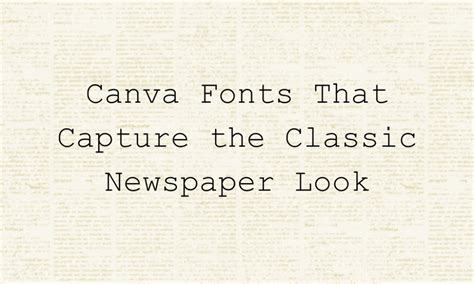
Download Newspaper Fonts: Get That Classic Look
Download Newspaper Fonts: Get That Classic Look!Imagine flipping through an old newspaper, the rustle of the pages, the distinct smell of ink, and that unmistakable typeface that just screams “news.” Guys, there’s something incredibly timeless and powerful about newspaper fonts , right? They carry a sense of history, authority, and often a beautiful simplicity that modern designs sometimes miss. If you’re looking to infuse your projects with that classic, journalistic charm, then you’re in the absolute right place. This ultimate guide is all about helping you download newspaper fonts that will bring your creative visions to life, whether you’re designing a vintage poster, a school project, a blog header, or even a wedding invitation with a unique twist. We’re going to dive deep into where to find them, how to choose the best ones, and even some cool tips and tricks to make them shine. So, buckle up, because your journey to mastering classic typography starts now! We’ll explore the best sources, both free and premium, ensuring you can find the perfect font for any budget and any project. Understanding the nuances of these typefaces, from their historical roots to their specific design characteristics, is crucial for making informed choices that truly elevate your work. We’re talking about everything from the bold, declarative headlines to the crisp, readable body text that defined an era of print media. Get ready to transform your designs with the authentic feel of a bygone journalistic age. You’ll be surprised at how much character a well-chosen newspaper font can add, making your content not just read, but felt by your audience. It’s all about capturing that nostalgic, trustworthy, and utterly engaging vibe that only true newspaper typography can deliver. This isn’t just about picking a font; it’s about selecting a piece of history and breathing new life into it through your own creative endeavors. So, let’s get those fantastic newspaper fonts into your design toolkit today!The quest to download newspaper fonts often begins with a desire to tap into a rich visual language that has shaped how we consume information for centuries. Think about it: the fonts used in newspapers weren’t just arbitrary choices; they were meticulously designed for maximum readability, economic use of space, and to convey a certain gravitas. This legacy continues to make them incredibly popular for designers and hobbyists alike who want to evoke trust, tradition, or a retro aesthetic. We’ll walk through understanding the different styles, distinguishing between display and body text options, and making sure you grab only high-quality files that will render beautifully. Plus, we’ll hit on those crucial licensing details – because nobody wants a legal headache, especially not over a font! By the end of this guide, you’ll be a pro at finding and implementing these amazing typefaces, turning any ordinary layout into something extraordinary and memorable. Prepare to inject some serious character and old-school cool into everything you create. This comprehensive resource is designed to be your go-to reference for all things related to acquiring and utilizing the perfect newspaper-style typography, making your design process smoother and more inspiring. It’s truly about bringing that classic newsroom feel right to your desktop.### Why Newspaper Fonts Still Rock!Okay, seriously, guys, why are we still so obsessed with newspaper fonts in this digital age? It’s simple: they just hit different! There’s an undeniable allure to that classic, no-nonsense typography that evokes a sense of authority, tradition, and timelessness . When you think about the newspapers of old, you’re not just thinking about the news stories; you’re often subconsciously remembering the distinct visual identity created by their typefaces. These fonts were engineered for clarity and readability under various printing conditions, and that practical design philosophy makes them incredibly effective even today. From the bold, declarative headlines that grabbed your attention on the morning commute to the densely packed, yet still perfectly legible, body text that conveyed the day’s events, newspaper fonts have a unique ability to tell a story not just through words, but through their very form. They carry a historical weight, often bringing a subtle nostalgic or vintage touch to any project. Whether you’re a seasoned graphic designer, a student working on a period piece, or just someone looking to add a touch of sophistication to your personal blog, knowing how to find and download newspaper fonts is a seriously valuable skill. They are perfect for branding that needs to convey trust and reliability, for creating captivating event invitations, or for crafting headlines that demand attention. These fonts are versatile too; they can be serious and formal, or with the right styling, they can become playful and retro. It’s all about choosing the right newspaper font for your specific message and aesthetic. We’re talking about typefaces that have literally informed generations, making them incredibly potent tools in your design arsenal. Their robust construction means they scale well, whether you’re working on a tiny web graphic or a massive poster. The sheer variety available, from slab serifs to classic Didones, ensures there’s a newspaper font out there for almost every conceivable need. So, if you want your text to not just be read, but to command respect and evoke a certain gravitas, then diving into the world of newspaper typography is an absolute must. They don’t just communicate; they resonate . This enduring appeal is precisely why so many designers continue to seek out and download newspaper fonts to give their work that extra layer of depth and character that truly sets it apart. It’s a nod to the past that perfectly complements modern design sensibilities, proving that some things truly never go out of style. The rich history and intentional design behind these fonts ensure that they offer a unique blend of practicality and aesthetic appeal, making them indispensable for anyone serious about compelling visual communication. Don’t underestimate the power of a good, classic newsprint typeface to instantly elevate the perceived quality and historical context of your entire project. It’s about bringing a piece of print history to life on your digital canvas.## Understanding What Makes a Newspaper Font UniqueAlright, let’s get down to the nitty-gritty, folks! When you’re looking to download newspaper fonts , it’s super helpful to understand what actually makes them tick. It’s not just about a generic old-timey look; there are specific characteristics that define these typefaces and make them so effective. Historically, newspapers had to be printed quickly, cheaply, and legibly on often low-quality paper. This meant fonts needed to be robust, efficient with space, and clear even when ink bled a little. This practical foundation shaped the aesthetic we now recognize and love. We’re talking about things like strong serifs that guide the eye, condensed widths to fit more text on a line, and excellent contrast to ensure every letter popped. Many classic newspaper typefaces, for instance, belong to the Didone or Modern serif categories, characterized by their high contrast between thick and thin strokes and strong, unbracketed serifs. Think about the iconic look of a Vogue magazine header or the classic newspaper masthead – that’s often a Didone at play. But it’s not just about the fancy display fonts; the body text also has its own unique requirements. Newspaper body fonts had to be incredibly readable for long stretches, so they often featured generous x-heights, open apertures, and careful spacing to prevent reader fatigue. Understanding these core principles will not only help you choose the right font but also appreciate the craftsmanship behind these enduring designs. It’s a blend of functionality and artistry that truly makes them stand out. So, next time you’re browsing to download newspaper fonts , you’ll have a much better idea of what you’re looking for and why certain styles have that classic newspaper feel. It’s a deep dive into the historical and practical considerations that forged these iconic textual forms, providing you with a clearer lens through which to evaluate and select the perfect typeface for your needs. The nuances of these fonts often lie in their subtle details, which, when understood, unlock a whole new level of appreciation and utility in your design work. Don’t just pick any old font; choose one that carries the weight and wisdom of journalistic tradition.### The Anatomy of Classic Newspaper TypefacesSo, what exactly are we looking at when we talk about the anatomy of classic newspaper typefaces ? It’s all about those distinguishing features, guys! When you aim to download newspaper fonts , you’ll quickly notice a few common traits. Many headline fonts, for example, tend to be condensed and bold , allowing publishers to fit more impactful words into tight columns while still screaming for attention. Think about those urgent, breaking news banners – they’re often designed with this principle in mind. Serifs, those little feet at the ends of strokes, are also hugely important. While some modern newspaper-inspired fonts might be sans-serif, many of the truly classic newspaper typefaces are serif fonts . These serifs help guide the reader’s eye across the page, improving legibility, especially in dense blocks of text. You’ll often see robust, often square or slab-like serifs, which add to their sturdy, no-nonsense appearance. Some popular examples that either originated in newspapers or heavily influenced their look include variations of Didone (like Bodoni or Walbaum), known for their dramatic thick-and-thin contrast, or robust Egyptian (Slab Serif) styles for their authoritative presence. You might even encounter Gothic (or Blackletter) styles, particularly for very old newspaper mastheads, though these are less common for body text due to their lower legibility. The emphasis is almost always on clarity and impact . Letterforms are typically clean, with consistent stroke widths (or intentional, high-contrast variation in Didones) and generous spacing to prevent them from blurring together on newsprint. When looking to download newspaper fonts , pay attention to these details: are the serifs prominent? Is the font condensed? How’s the contrast? These are the hallmarks of authentic newspaper design. They were built for performance under pressure, making them incredibly reliable and visually appealing. This deep dive into their structural elements helps you recognize and appreciate the engineering that went into making these fonts so iconic and effective. Understanding these characteristics allows you to make more informed decisions when curating your font library, ensuring that the typefaces you choose truly embody the essence of classic journalism. It’s about more than just aesthetics; it’s about historical function meeting artistic form.### Beyond the Headlines: Body Text and Display FontsWhen you’re looking to download newspaper fonts , it’s super important to remember that not all newspaper fonts are created equal, especially when it comes to their intended use. You’ve got your display fonts and your body text fonts , and they each play a crucial role in mimicking that authentic newspaper feel. Display fonts are the show-stoppers, guys! These are the big, bold typefaces designed to grab attention immediately. Think of the masthead (the newspaper’s name at the top) or those urgent, dramatic headlines screaming BREAKING NEWS! These fonts are often more decorative, heavier, more condensed, or have higher contrast than their body text counterparts. They’re meant to be read quickly and make an impact from a distance. Examples include strong slab serifs or highly stylized Didones that demand your gaze. You wouldn’t want to use these for a whole paragraph, though, because they can quickly become tiring to read in small sizes or long stretches. Then we have the unsung heroes: the body text fonts . These are the workhorses that carry the bulk of the news story. Their primary job is legibility and readability over long periods. When you download newspaper fonts for body text, you’re looking for something that is clear, has good spacing, and doesn’t strain the eyes. Classic examples that often influenced newspaper body text include robust Old Style serifs (like a sturdy Garamond or a well-designed Times New Roman, which was specifically designed for The Times newspaper) or transitional serifs. These fonts often feature moderate contrast, well-defined serifs, and a comfortable x-height, ensuring that even dense paragraphs remain approachable and easy to follow. A great newspaper layout skillfully pairs a striking display font with a highly readable body text font to create a harmonious and effective design. So, when you’re stocking up your font library, remember to think about the role each font will play. Don’t just pick something that looks cool in a huge size; consider how it will function when scaled down or used repetitively. It’s all about creating that authentic balance that made old newspapers so effective at communicating vast amounts of information clearly and engagingly. This distinction is paramount for anyone serious about replicating the professional and historically rich aesthetic of print journalism in their own projects. Choosing wisely ensures your content is not only seen but also comfortably absorbed by your audience.## Where to Find and Download Newspaper Fonts (Legally and Safely!)Alright, folks, now for the exciting part: actually getting your hands on some awesome newspaper fonts ! Knowing where to find and download newspaper fonts legally and safely is absolutely crucial. You don’t want to run into any copyright issues or accidentally download sketchy files, right? There’s a fantastic world of resources out there, ranging from completely free options that are perfect for personal projects to premium marketplaces offering professional-grade typefaces for commercial ventures. The key is to always pay attention to the licensing details – this is not something you want to skip! For those just starting out or working on personal, non-commercial projects, there are some incredible free font sites that offer a vast array of styles, including many that beautifully emulate classic newspaper typography. However, if you’re a designer working for clients, running a business, or simply want the very best quality and broadest character sets, investing in premium fonts from dedicated foundries or marketplaces is definitely the way to go. These premium options often come with extensive language support, multiple weights and styles, and robust licensing that covers a wide range of commercial uses. We’ll also touch on some lesser-known archival resources for truly unique and historically accurate typefaces, which can be a goldmine for specialized projects. Remember, downloading fonts isn’t just about the aesthetics; it’s also about ethics and ensuring you have the legal right to use them in your specific context. So, let’s explore these treasure troves of typography and make sure you’re well-equipped to download newspaper fonts with confidence and peace of mind. This section will guide you through the digital landscape of font acquisition, highlighting reputable platforms and offering critical advice on navigating the often-complex world of font licensing. Get ready to expand your typographic toolkit with some truly stellar options!### Reputable Free Font WebsitesWho doesn’t love a good freebie, especially when it comes to design resources? Guys, there are some fantastic and reputable free font websites out there where you can download newspaper fonts without spending a dime. These sites are a lifesaver for hobbyists, students, or anyone on a tight budget. However, and this is a big however , you absolutely, positively must pay attention to the licensing information for each font. “Free” often means “free for personal use only,” and using a personal-use-only font for a commercial project (like a client’s logo or a product you sell) can lead to legal headaches. Always double-check!Here are some of the best places to start your search:* Google Fonts: This is arguably the safest and most reliable place to start. All fonts on Google Fonts are open-source and 100% free for both personal and commercial use . You’ll find a growing collection of high-quality fonts, many of which have a classic, robust feel that can work wonders for a newspaper aesthetic. Just type “serif” or “slab serif” into the search bar, and you’ll find some gems. The convenience of integration directly into web projects is also a huge plus here.* Font Squirrel: This site is a treasure trove for free fonts that often come with commercial licenses . They hand-select fonts, ensuring they are high quality and legally usable for various projects. They even have a handy filter for license types, making it easy to find fonts suitable for commercial work. Look for categories like “Display” or “Slab Serif” to find newspaper-style options. Their font identifier tool is also incredibly useful if you see a font you like in the wild and want to track it down.* DaFont: This is one of the most popular sites, boasting a massive collection. You’ll find tons of unique and niche fonts here, including many with a vintage or journalistic flair. The critical thing with DaFont is to always use their licensing filter. Select “100% Free” or “Public Domain” for fonts you can use commercially without worry, or “Free for personal use” if your project fits that scope. Be warned, the quality can vary, so test before committing.* 1001 Free Fonts: Similar to DaFont, this site offers a huge selection. Again, the license filter is your best friend here. Look for options that explicitly state they are free for commercial use. You’ll definitely find some interesting retro and classic styles that can evoke that newspaper vibe.When you download newspaper fonts from these sites, make sure to read the included readme.txt file or check the font’s page for detailed license information. A little caution goes a long way in ensuring your projects are ethically and legally sound! These platforms offer an amazing starting point, allowing you to experiment with different styles without any financial commitment, which is perfect for refining your aesthetic and understanding what truly works for your design.### Premium Font Marketplaces for Professional ProjectsAlright, for those of you serious designers out there, or if your project demands that extra level of polish and professionalism, then investing in fonts from premium font marketplaces is absolutely the way to go. While you can certainly download newspaper fonts for free, premium options often come with superior quality, more complete character sets, broader language support, and much more comprehensive licensing, giving you peace of mind for commercial work. Think of it as investing in a high-quality tool for your craft – it makes a difference!Here are some top-tier marketplaces where you’ll find exquisite newspaper-style fonts:* MyFonts: This is one of the biggest and most respected font marketplaces. MyFonts hosts thousands of typefaces from independent foundries and major publishers. You can find incredibly diverse collections of serif fonts, slab serifs, and display fonts that perfectly capture that classic journalistic essence. Their advanced search filters allow you to narrow down by style, mood, and even specific characteristics. You’ll often find entire font families with multiple weights and styles here, offering incredible versatility. The investment here translates directly into professional-grade typography.* Adobe Fonts: If you’re an Adobe Creative Cloud subscriber, you’re in luck, guys! Adobe Fonts (formerly Typekit) is included with your subscription and offers a vast library of high-quality fonts that you can activate and use directly within your Adobe applications. Many fantastic newspaper-style fonts, including both classic revivals and modern interpretations, are available here, all with clear licensing for commercial use. It’s a fantastic value if you’re already paying for the Creative Cloud.* Creative Market: This is a fantastic marketplace for independent creators. While you’ll find everything from templates to graphics, their font section is particularly strong. You’ll often discover unique and handcrafted newspaper-inspired fonts here that you might not find elsewhere. Many bundles and deals are available, and the licensing is usually straightforward. It’s a great place to find something a little off the beaten path that still maintains high quality.* Fontspring: Fontspring is known for its clear and simple licensing, which is a huge relief for professional designers. They offer a curated selection of fonts, and their “worry-free” licensing policy means you buy a font once and can use it for almost any purpose (print, web, app, etc.) without complex calculations. You’ll find many robust serif and display fonts perfect for a newspaper aesthetic.* Lost Type Co-op: This foundry offers a unique “pay-what-you-want” model for personal use, but commercial licenses are purchased at set prices. They have some beautifully designed and distinctive typefaces, some with a fantastic vintage or industrial feel that could lend themselves well to a newspaper look.The beauty of these premium sources is the assurance of quality, the support from the font creators, and the straightforward licensing agreements. When you download newspaper fonts from these platforms, you’re not just getting a typeface; you’re getting a reliable, well-crafted design tool that will elevate your work significantly. It’s an investment in your design future, ensuring that your projects always look their best and are legally sound. These platforms are essential for any designer who prioritizes excellence and wishes to avoid the pitfalls associated with lower-quality or improperly licensed free fonts.### Archival and Historical Font ResourcesFor the true font connoisseurs and history buffs among you, finding archival and historical font resources can be an absolute goldmine when you want to download newspaper fonts that are as authentic as they come. These aren’t your everyday font sites; we’re talking about delving into the past to unearth typefaces that were either directly used in historical newspapers or are faithful digital revivals of those classic designs. This route is perfect if you’re working on a period-specific project, a historical documentary, a museum exhibit, or anything that requires an unimpeachable level of authenticity .It’s important to note that many of these fonts might be harder to find, potentially more expensive (as they often come from specialized foundries dedicated to historical revivals), or might even require custom licensing. But for the right project, the effort is totally worth it for that undeniable vintage charm .Here are a few places and approaches to consider:* Specialized Type Foundries for Revivals: Some foundries dedicate themselves to digitizing and reviving historical typefaces. They research old specimen books, historical documents, and, yes, old newspapers, to meticulously recreate fonts with incredible accuracy. Foundries like P22 Type Foundry (known for historical revivals), Canada Type , or even sub-collections within larger marketplaces like MyFonts often feature these unique collections. Searching specifically for “historical revivals,” “period typefaces,” or typefaces from specific eras (e.g., “19th century newspaper font”) can yield fantastic results.* University Archives and Digital Libraries: Many universities and historical societies are digitizing old newspapers and their associated printing materials. While you might not directly download newspaper fonts as TTF or OTF files from these archives, you can often find high-resolution scans of newspaper pages. This visual reference can then be used to identify specific typefaces, which you can then search for as a digital font or even commission a custom digitization if your project is large enough. Project Gutenberg or the Library of Congress digital collections are starting points for visual research.* Typeface Identification Services: If you have an image of a specific old newspaper font you love but can’t identify, services like WhatTheFont (from MyFonts) or forums dedicated to typography can help. Once identified, you can then search for its digital equivalent or a close approximation.This approach requires a bit more detective work, but the reward is a truly unique and historically resonant typeface that will set your project apart. When you download newspaper fonts from these historical sources, you’re not just getting a font; you’re getting a piece of cultural heritage, meticulously preserved and brought into the digital age. This level of authenticity can profoundly impact the credibility and aesthetic depth of your work, making it invaluable for projects where historical accuracy is paramount. It’s an adventure into the past, with the tools of the present!## How to Choose the Perfect Newspaper Font for Your ProjectAlright, guys, you’ve explored where to download newspaper fonts , but now comes the fun part, and arguably the most crucial: how to choose the perfect newspaper font for your project ! It’s not just about picking something that looks cool; it’s about making an informed decision that elevates your design and effectively communicates your message. Think about it: a font designed for a serious, hard-hitting news article might not be the best fit for a whimsical, vintage-inspired event invitation, even if both are “newspaper-style.” The right font can evoke trust, nostalgia, urgency, or even a touch of playful retro charm, but the wrong font can create confusion or an unintended vibe. So, before you hit that download button, take a moment to consider the bigger picture. What feeling are you trying to convey? Who is your audience? And what’s the overall tone of your project? These questions will guide you toward the ideal typeface that truly resonates with your creative vision. We’re going to break down the key factors to consider, from the mood and purpose of your project to the essential practicality of readability and, of course, that ever-important licensing aspect. Choosing well means your design will not only look amazing but will also function effectively, delivering your message with clarity and impact. This selection process is critical for ensuring that the historical aesthetic you’re aiming for perfectly aligns with your modern design goals, creating a cohesive and compelling visual narrative that truly stands out.### Consider Your Project’s Vibe and PurposeThis is probably the first and most important thing to think about when you’re trying to download newspaper fonts : what’s the vibe and purpose of your project? Seriously, guys, this makes all the difference! A font that works perfectly for a serious, historical document will likely clash with a fun, retro-themed party invitation, even if both are technically “newspaper-style.” For instance, if you’re designing a serious, authoritative website for a news blog or a historical society, you’ll want to lean towards traditional, robust serif fonts. Think along the lines of classic Didones or sturdy transitional serifs for headlines, paired with highly legible body text fonts. These convey trust, gravitas, and a sense of established reporting. You’re aiming for a look that feels credible and timeless .On the other hand, what if you’re creating a fun, whimsical invitation for a vintage-themed birthday party or a quirky local zine? Here, you might experiment with slightly more decorative slab serifs, distressed textures, or even some of the more elaborate display fonts that were popular in newspaper ads of the early 20th century. The goal here isn’t strict journalistic adherence but rather capturing a nostalgic, playful, or campy retro feel .Similarly, if you’re designing a marketing flyer or an advertisement that needs to pop, you might look for bolder, more condensed headline fonts that demand attention, reminiscent of classic newspaper classifieds or sales announcements. The purpose is immediate impact and clear call to action.Understanding your project’s core message and the emotional response you want to elicit will dramatically narrow down your font choices. Don’t just pick a font because it’s labeled “newspaper”; consider which era of newspaper it represents and what kind of news it would have conveyed. A 19th-century broadsheet font has a different feel than a mid-20th-century tabloid font. This thoughtful approach ensures that when you download newspaper fonts , you’re selecting typefaces that perfectly align with your overall design strategy, making your message resonate deeply with your intended audience. It’s about telling a story through typography, and every story needs the right voice.### Readability is Key (Especially for Body Text)When you’re looking to download newspaper fonts , remember this golden rule: readability is key , especially for body text. Guys, nobody wants to squint to read your awesome content! While a super decorative or highly condensed font might look fantastic as a headline in a huge size, it can quickly become an absolute nightmare to read in smaller sizes or long paragraphs. The entire purpose of newspaper typography, from its very origins, was to convey information clearly and efficiently to a mass audience. They prioritized function over overly elaborate aesthetics for the main content.For headlines and display purposes, you can certainly get away with more stylized or impactful fonts because they’re meant to be glanced at quickly. But for anything more than a few words, particularly if it’s dense with information, you need fonts that are designed for sustained reading . What makes a font readable for body text?* Clear Letterforms: Each letter should be distinct and easily identifiable. Overly thin strokes, very high contrast (where the thin parts almost disappear), or overly condensed/expanded forms can hinder this.* Generous X-Height: This refers to the height of the lowercase ‘x’ relative to the capital letters. Fonts with a good x-height tend to be more legible at smaller sizes because the main body of the letters is larger.* Open Apertures: These are the open spaces within letters like ‘c’, ‘e’, ‘a’, ’s’. When these are too closed, letters can blur together, especially in print.* Good Spacing (Kerning and Tracking): The space between letters and words shouldn’t be too tight or too loose. Good fonts have been meticulously designed for optimal spacing.When you download newspaper fonts for body text, always prioritize those classic serif styles that have stood the test of time, like those influenced by Old Style or Transitional serifs. Test them out in the size you intend to use them. Print a sample if it’s for print, or view it on different screens if it’s for web. A beautiful font is useless if it can’t be read! Making readability a top priority ensures that your project is not just visually appealing but also highly functional and user-friendly, a hallmark of excellent design. This meticulous approach to font selection ensures that your message is conveyed effortlessly, honoring the original intent of newspaper typography: clear communication.### Licensing, Licensing!Alright, guys, listen up because this is a CRITICAL point when you download newspaper fonts : licensing, licensing! Seriously, I can’t stress this enough. This is where many designers, especially beginners, can run into sticky situations. Just because a font is “free” doesn’t mean it’s free for every use. Understanding font licenses is absolutely essential to avoid potential legal headaches down the road.There are generally a few common types of licenses you’ll encounter:* Personal Use Only: This is very common for fonts found on sites like DaFont or 1001 Free Fonts. It means you can use the font for non-commercial projects, like a school assignment, a personal blog header (if you’re not monetizing it), or a design for your own desktop wallpaper. You cannot use it for anything that generates income, directly or indirectly, or for a client’s project without purchasing a commercial license.* Free for Personal & Commercial Use: This is the holy grail for free fonts! Fonts from Google Fonts almost always fall into this category, as do many on Font Squirrel. If a font explicitly states this, you’re good to go for both personal and commercial projects without needing to buy a separate license.* Public Domain: Fonts in the public domain have no copyright restrictions and can be used for any purpose, personal or commercial, without attribution. These are rarer but exist, especially for very old, historical typefaces where copyright has expired.* Commercial License (Paid Fonts): When you purchase a font from a premium marketplace like MyFonts or Adobe Fonts, you’re buying a commercial license. These licenses typically specify how you can use the font: for desktop applications (print, static images), web (embedding on websites), apps, e-books, etc. Always read the terms carefully, as different licenses might be required for different uses.When you download newspaper fonts , always, always , always look for the license information. It’s usually listed directly on the font’s download page, or included in a readme.txt file within the font package. If you’re unsure, or if the license isn’t clear, don’t use it for commercial work . It’s always safer to err on the side of caution or purchase a proper license. A small investment upfront can save you a massive headache and potential legal fees later. This diligence ensures that your creative work is not only beautiful but also ethically and legally sound, protecting both you and your clients.## Tips for Using Newspaper Fonts Effectively in Your DesignsAlright, now that you’ve got your awesome arsenal of newspaper fonts , let’s talk about how to make them truly shine in your designs! Simply downloading a bunch of cool typefaces isn’t enough; the real magic happens when you use them effectively. Mastering the art of typography involves more than just selecting a font; it’s about understanding how different elements interact, how to create visual harmony, and how to maintain that authentic newspaper aesthetic without making your design look cluttered or messy. We’re going to dive into some pro tips that will help you leverage the full potential of these classic typefaces, ensuring your projects look polished, professional, and genuinely impactful. From pairing different fonts to tweaking the subtle spacing between letters, and even adding a touch of vintage texture, these techniques will transform your design approach. The goal is to bring that rich, historical feel of print journalism into your modern creations, making them resonate with depth and character. So, grab your design tools, because we’re about to unlock the secrets to truly compelling newspaper-inspired typography! These strategies are essential for anyone who wants their work to not just use, but embody the sophisticated and timeless appeal of a well-crafted newspaper layout.### Pairing Fonts for Visual HarmonyOne of the coolest things you can do when you download newspaper fonts is to master the art of pairing fonts for visual harmony . Seriously, guys, this is where your design starts to look truly professional and thought-out! Rarely does a newspaper (or any good design, for that matter) rely on a single font for everything. The trick is to combine different typefaces that complement each other, creating a dynamic yet cohesive look.Here’s how to approach it:* The Classic Contrast: A common and highly effective strategy is to pair a strong, bold newspaper-style serif font for your headlines with a clean, legible sans-serif font for your body text. This creates excellent visual contrast, making your headlines pop while ensuring your main content is easy to read. For example, a heavy slab serif for a title combined with a neutral sans-serif like Open Sans or Lato for the text below. The sans-serif provides a modern counterpoint that makes the serif feel even more classic.* Serif-on-Serif (with care!): You can absolutely pair two serif fonts, but you need to be careful. Look for contrast in weight, style, or historical period. For instance, a decorative Didone serif for a main headline could be paired with a more robust, old-style serif for a sub-headline or a pull quote. The key is that they shouldn’t be too similar, or they’ll just clash rather than complement. Think about one being the “flashy lead” and the other being the “dependable support.”
• Emphasize Hierarchy: Font pairing is also about establishing a clear visual hierarchy. Your headline font should be the most prominent, followed by sub-headlines, and then body text. This guides the reader’s eye through your content logically. When you download newspaper fonts , think about the roles they will play in this hierarchy.
• Stick to 2-3 Fonts (Max): A general rule of thumb is to use no more than two or three different fonts in a single design. More than that, and your layout can quickly look messy and unprofessional. Choose one primary display font, one primary body font, and perhaps a third for accents or special callouts.
Experimentation is key! Test out different combinations to see what feels right for your specific project’s vibe. Good font pairing enhances readability, adds aesthetic appeal, and helps to reinforce the overall message and character of your design, making it feel truly complete and polished. This approach allows your chosen newspaper fonts to truly shine, setting the tone and guiding the reader with precision and elegance, capturing the sophisticated essence of historical print.### Kerning, Leading, and TrackingOkay, guys, if you want your newspaper fonts to look truly professional, you absolutely need to understand kerning, leading, and tracking . These aren’t just fancy designer terms; they’re the subtle tweaks that make your typography go from good to great ! When you download newspaper fonts , they come with default settings, but often, a little manual adjustment can make a world of difference in achieving that perfectly polished, classic newspaper aesthetic.Let’s break them down:* Kerning: This is the adjustment of space between individual pairs of letters . Think about letters like “AV” or “To” – their default spacing might leave awkward gaps. Good kerning ensures that the visual space between all characters appears even. Many high-quality fonts come with built-in kerning pairs, but sometimes you’ll need to manually adjust for specific letter combinations or in large display text. It’s all about making your text feel balanced and aesthetically pleasing, preventing those annoying little visual rivers in your text.* Leading (pronounced “led-ding”): This refers to the vertical space between lines of text. Historically, it literally involved strips of lead placed between lines of type. Too little leading makes text feel cramped and hard to read, while too much leading can make paragraphs look disconnected. For newspaper body text, where legibility is paramount, finding the sweet spot for leading is critical. It should be generous enough to guide the eye from one line to the next without effort, but not so open that it breaks the flow of the paragraph. A good rule of thumb for body text is typically 120-145% of the font size.* Tracking: This is the uniform adjustment of space across a range of characters or an entire block of text . Unlike kerning, which focuses on specific pairs, tracking affects the overall density of the text. You might slightly decrease tracking for headlines to make them feel more impactful and compact (fitting more in a tight space, a common newspaper need!). Conversely, you might slightly increase tracking for very small text to improve legibility. Be careful not to overdo it in either direction, as extreme tracking can make text unreadable.When you download newspaper fonts , especially for headlines or sub-headlines, always take a moment to examine the kerning. Adjust the leading for your body text to ensure maximum readability, and consider subtle tracking adjustments for display elements. These small, meticulous adjustments are what elevate amateur typography to professional-grade design, giving your content that crisp, refined, and authentic newspaper feel that truly captures attention. Mastering these concepts transforms your ability to work with type, turning a simple collection of letters into a work of art that effortlessly communicates its message.### Color and Texture: Adding to the Old-School CharmBeyond just the typefaces themselves, guys, one of the best ways to truly enhance that old-school charm when you download newspaper fonts is by thoughtfully integrating color and texture into your designs. It’s not just about black text on a white page anymore! These elements can dramatically deepen the vintage aesthetic and make your projects feel incredibly authentic and tactile.Think about a real, old newspaper. It’s rarely perfectly pristine white. It often has a slight off-white or cream-colored background, and the ink might not be perfectly uniform, sometimes looking a bit faded or having a subtle bleed. You can replicate this digitally!* Muted Color Palettes: Instead of stark black and pure white, opt for muted, slightly desaturated color palettes . For text, a dark grey or a very dark brown (often called “off-black”) against an off-white, light cream, or even a subtle beige background can instantly evoke that aged paper feel. For accent colors, think about earthy tones, deep blues, or muted reds and greens – colors that were common in early print advertising or masthead designs. Avoid overly bright, neon, or highly saturated colors unless you’re specifically going for a modern retro-pop look.* Subtle Textures: This is where you can really bring your design to life. Adding a subtle paper texture to your background is a game-changer. Look for textures that mimic newsprint, aged paper, or even a light canvas. You can achieve this with overlay blend modes in design software or by using high-quality texture images. Don’t make it too busy; the texture should be subtle enough to add depth without distracting from the text. A light grain , noise , or even a creased paper texture can add incredible realism. You can also apply a very light, subtle ink bleed or distress texture to your text itself, making it look like it was printed on an old press rather than rendered digitally.* Photographic Effects: Consider using sepia tones , duotones , or black-and-white filters for any accompanying images. This further ties into the vintage newspaper aesthetic and creates a cohesive visual experience.When you download newspaper fonts and then layer them with these intentional color choices and thoughtful textures, you’re not just designing; you’re crafting an immersive experience that transports your audience back in time. These elements work together to build a compelling narrative, making your designs feel rich, authentic, and wonderfully nostalgic. It’s these subtle, integrated details that transform a good design into a truly captivating piece of visual art, fully embracing the historical context and tactile feel of traditional print media.## Common Pitfalls to Avoid When Downloading Newspaper FontsAlright, folks, we’ve covered the good stuff – where to find and how to use amazing newspaper fonts . But now, let’s talk about the tricky bits. Just like any design resource, there are some common pitfalls to avoid when downloading newspaper fonts . Seriously, nobody wants to spend hours on a project only to realize they’ve used an unlicensed font, or worse, one that just looks plain bad when printed. A little foresight here can save you a lot of headache, frustration, and even potential legal troubles down the line. We want your design journey to be smooth sailing, not a bumpy ride through avoidable mistakes. From understanding the nuances of font licenses to recognizing low-quality typefaces, being aware of these traps is just as important as knowing where to find the best resources. So, let’s arm you with the knowledge to sidestep these common issues, ensuring that your quest for that perfect journalistic look is both successful and stress-free. Your designs deserve the best, and avoiding these traps is a crucial step in achieving professional-grade typography. This section is your protective shield, safeguarding your creative process from unnecessary complications and ensuring you make informed, safe choices every step of the way.### “Free” Fonts That Aren’t Really Free (for Commercial Use)Guys, this is probably the biggest pitfall when you’re looking to download newspaper fonts , especially from those vast free font archives: thinking that “free” always means “free for commercial use.” It absolutely does not! This is a critical distinction that can lead to serious legal issues if ignored.Many, many fonts available for “free” online are only licensed for personal use . This means you can use them for: - Your own personal computer’s interface - A school project (if it’s not for a client or for profit) - A design for your own family’s invitation or a personal hobby blog that doesn’t generate income.However, if you use a “personal use only” font for any of the following, you’re likely violating its license:* A client’s project: Whether it’s a logo, website, brochure, or anything for which they’re paying you.* A product you sell: T-shirts, posters, digital products, etc.* A business website or blog: If it’s monetized through ads, sales, or services.* Any advertising or promotional material: For a business, product, or service.* An app or video game. The consequences of using an unlicensed font for commercial purposes can range from a polite cease-and-desist letter to significant fines and lawsuits. Font foundries and designers protect their intellectual property, and rightfully so!When you download newspaper fonts , especially from sites like DaFont or 1001 Free Fonts, you must check the licensing information for each individual font . Look for explicit statements like “Free for commercial use,” “Open Source,” or “Public Domain.” If it says “Free for personal use” or if the license is unclear, assume it’s personal use only and either purchase a commercial license from the designer (if available) or choose a different font that is explicitly licensed for commercial work.Don’t let a small oversight turn into a major problem. A few minutes spent checking the license is always worth it to protect yourself and your clients. This diligence is a cornerstone of professional design practice, ensuring that your work is not only creative but also legally sound and respectful of intellectual property rights. It’s a fundamental aspect of being a responsible and ethical designer in today’s digital landscape.### Overuse and InconsistencyAnother common trap, guys, when you’re super excited to download newspaper fonts , is falling into the habit of overuse and inconsistency . It’s like when you discover a new favorite seasoning and suddenly everything tastes like it! While variety is great, using too many different newspaper fonts within a single project, or inconsistently applying your chosen fonts, can make your design look cluttered, unprofessional, and frankly, a bit chaotic.The goal of good typography, especially when evoking a classic newspaper feel, is cohesion and clarity . Newspapers, despite often having many articles and sections, maintained a clear and consistent visual identity through their typography. They usually stuck to a primary font for headlines, another for body text, and perhaps one or two for special features or ads.Here’s what to avoid:* Too Many Cooks in the Kitchen: Don’t use a different newspaper font for every single headline or every new paragraph. This creates visual noise and makes your layout look disorganized. Your audience won’t know where to focus, and the overall effect will be jarring instead of harmonious.* Inconsistent Application: If you decide to use a certain slab serif for your main headlines, stick with it! Don’t switch to a condensed sans-serif for some headlines and then back to the slab serif for others. Consistency builds trust and makes your design feel intentional and polished. This applies to font sizes, weights, and colors too.* Mixing Too Many Styles: While pairing fonts (as we discussed earlier) is great, trying to force a super decorative 19th-century Blackletter font next to a sleek 1950s modernist newspaper font might just create a mess. Aim for fonts that share a similar historical era or complement each other’s stylistic features, even if they are from different categories.* Ignoring Visual Hierarchy: Overuse can also lead to a breakdown of visual hierarchy. If every headline is shouting with a different bold font, none of them truly stand out. Choose your key display fonts and body fonts, and use their variations (bold, italic, light) strategically to create emphasis.When you download newspaper fonts , try to curate a small, complementary collection for your project. A strong headline font, a readable body text font, and maybe one accent font are usually more than enough. This disciplined approach ensures that your designs remain clean, professional, and effectively communicate your message without overwhelming the reader. Remember, less is often more when it comes to sophisticated typography, allowing the unique character of each chosen font to truly stand out without competing for attention.### Poor Quality FontsThis is another sneaky one, guys, when you’re eagerly looking to download newspaper fonts : ending up with poor quality fonts . Not all fonts are created equal, and while a font might look decent as a thumbnail on a free site, it can reveal its flaws when you actually put it to use in your design software or print it out. Using low-quality fonts can severely undermine the professionalism and polish of your project, no matter how good your design otherwise is.What makes a font “poor quality”?* Incomplete Character Sets: A common issue with free or hastily made fonts. You might find it’s missing crucial characters like proper punctuation (smart quotes, em dashes), currency symbols, accented letters (essential for multilingual projects), or even basic numbers and symbols. This means you’ll have to switch to another font just for a comma, which is a huge workflow killer and creates inconsistency.* Bad Kerning and Spacing: We talked about kerning and leading earlier. Poorly designed fonts often have terrible default kerning, leading to awkward gaps between letters (e.g., “AV,” “Wa,” “Ty”) or inconsistent spacing throughout the text. This makes the text look clunky and unprofessional, and correcting it manually for every instance is incredibly time-consuming, if not impossible.* Poorly Drawn Outlines (Jagged Edges): Zoom in on the font at a larger size. Do the curves look smooth, or are they bumpy, pixelated, or jagged? Low-quality vector outlines can lead to blurry text, especially in print or when scaled to very large sizes. This is particularly noticeable on diagonal lines and curves.* Limited Weights/Styles: Many free fonts only come in a single regular weight, without bold, italic, or other variations. This severely limits your typographic flexibility and forces you to use faux bold/italic styles (which look bad) or switch to entirely different fonts, breaking consistency.* Missing OpenType Features: Professional fonts often include advanced OpenType features like ligatures, stylistic alternates, small caps, old-style figures, and more. Poor quality fonts will almost always lack these, limiting your design options.To avoid this pitfall, always test the font before committing to it. Type out a sample paragraph, include numbers and common punctuation, and check for kerning issues. Try it in bold and italic if those styles are offered. If you’re printing, do a test print. Investing in premium fonts from reputable foundries (as discussed earlier) is often the best way to guarantee high quality, but even among free options, Google Fonts and Font Squirrel are generally very reliable. Don’t let a bad font sabotage your amazing design work! The time saved and the enhanced visual appeal are well worth the effort of scrutinizing your font choices, ensuring that every character contributes to a professional and polished final product.## Your Journey to Perfect Newspaper Typography Starts Now!Well, folks, we’ve covered a ton of ground today, haven’t we? From understanding the timeless appeal and unique characteristics that make newspaper fonts so special to knowing exactly where to find and download newspaper fonts safely and legally, you’re now armed with a wealth of knowledge. We’ve talked about the crucial difference between display and body text fonts, how to perfectly pair them for visual harmony, and the subtle yet powerful impact of kerning, leading, and tracking. We even walked through essential considerations like your project’s vibe and the absolute necessity of checking font licenses to avoid those pesky pitfalls. Seriously, guys, you’re practically a typography pro now when it comes to that classic journalistic aesthetic!The world of typography is vast and exciting, and newspaper fonts offer a unique blend of history, functionality, and undeniable style. They have the power to evoke trust, tradition, urgency, or delightful nostalgia, instantly elevating your designs and adding a layer of depth that few other font styles can match. So, what are you waiting for? Your journey to creating compelling, authentic, and truly memorable newspaper-inspired designs starts right now.Don’t be afraid to experiment! Download newspaper fonts from various reputable sources, play around with different combinations, and see how they transform your text. Try applying subtle textures, adjusting colors to muted tones, and paying close attention to the spacing. Remember, the goal is not just to copy; it’s to adapt and innovate, using these classic tools to craft something fresh and unique.Whether you’re working on a personal blog, a professional client project, a school assignment, or just having fun with design, the principles we’ve discussed will guide you toward making informed and effective typographic choices. Embrace the power of these classic typefaces, respect their history, and let them bring a truly distinctive character to all your creative endeavors. Happy designing, everyone! Go forth and create some amazing stuff that would make even the most seasoned newspaper editor proud. The art of compelling communication through design is at your fingertips, and with the right newspaper fonts , your message will not only be read but truly felt. This comprehensive guide equips you with all the insights needed to navigate the rich landscape of newspaper typography, ensuring your designs are impactful, historically resonant, and flawlessly executed. It’s time to infuse your work with that timeless newsprint magic!“`